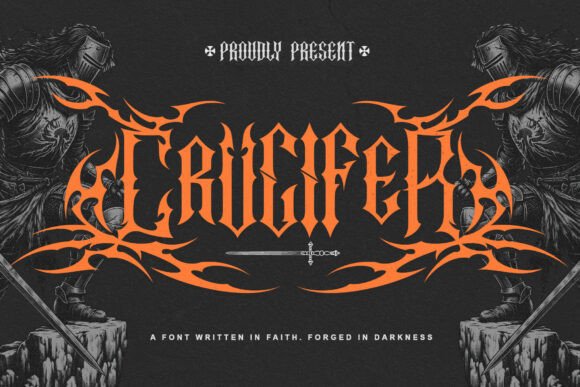
Unleash the Power of Dark Devotion with Crucifer Font
Imagine a font that embodies the mystique of ancient cathedrals, the forbidden knowledge of ancient manuscripts, and the unapologetic intensity of dark devotion. Welcome to Crucifer, a gothic blackletter font that descends into the sacred darkness, forging an unbreakable bond between faith and shadow.
The Birth of Crucifer
Crucifer is more than just a font – it’s an experience. Born from the intersection of faith and shadow, this gothic blackletter font is designed to evoke the solemn authority of ancient rituals and forbidden knowledge. With razor-sharp strokes and towering letterforms, Crucifer commands attention, delivering a powerful, ritual-driven presence that feels carved in iron rather than written in ink.
Design and Features
Crucifer’s design is a masterclass in dark elegance. Each letterform is meticulously crafted to convey a sense of dark devotion, with intricate details and sharp lines that evoke the mystique of ancient cathedrals. The font’s features include:
- Razor-sharp strokes and towering letterforms for a powerful, ritual-driven presence
- Intricate details and sharp lines that evoke the mystique of ancient cathedrals and forbidden manuscripts
- A dark, mysterious atmosphere that feels carved in iron rather than written in ink
Perfect for Dark and Bold Designs
Crucifer is designed for crafters and designers who dare to push the boundaries of dark and bold typography. This font is perfect for:
- Album covers: Add a touch of dark devotion to your music artwork
- Band logos: Create a bold, eye-catching logo that commands attention
- Dark fantasy titles: Bring your stories to life with a font that feels like it was carved in stone
- Tattoo designs: Create a unique and bold design that stands out
- Cinematic visuals: Add a touch of drama and intensity to your film and video project
Why Choose Crucifer?
In a world where typography is king, Crucifer stands out as a bold and unapologetic choice. Here are just a few reasons why designers and crafters choose Crucifer:
- Unapologetic intensity: Crucifer commands attention with its bold, dark presence
- Solemn authority: This font feels carved in iron rather than written in ink, giving it a sense of gravitas and importance
- Dark devotion: Crucifer embodies the mystique of ancient cathedrals and forbidden manuscripts, making it perfect for dark and bold designs
Transform Your Typography with Crucifer
Are you ready to unleash the power of dark devotion in your designs? Look no further than Crucifer font. With its razor-sharp strokes, towering letterforms, and dark, mysterious atmosphere, Crucifer is the perfect choice for designers and crafters who dare to push the boundaries of typography.
Let Crucifer transform your typography into a symbol of dark devotion, where every letter stands in faith, and every word is forged in darkness. Download Crucifer today and experience the power of gothic blackletter typography.